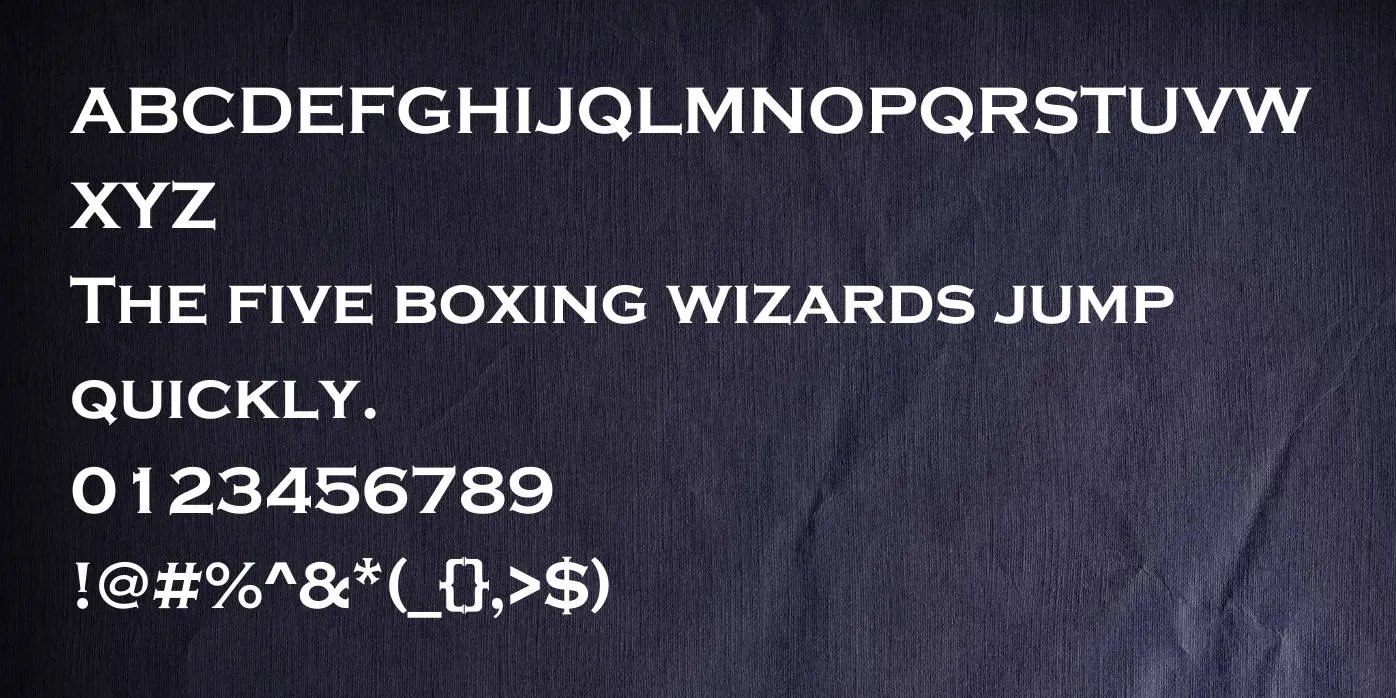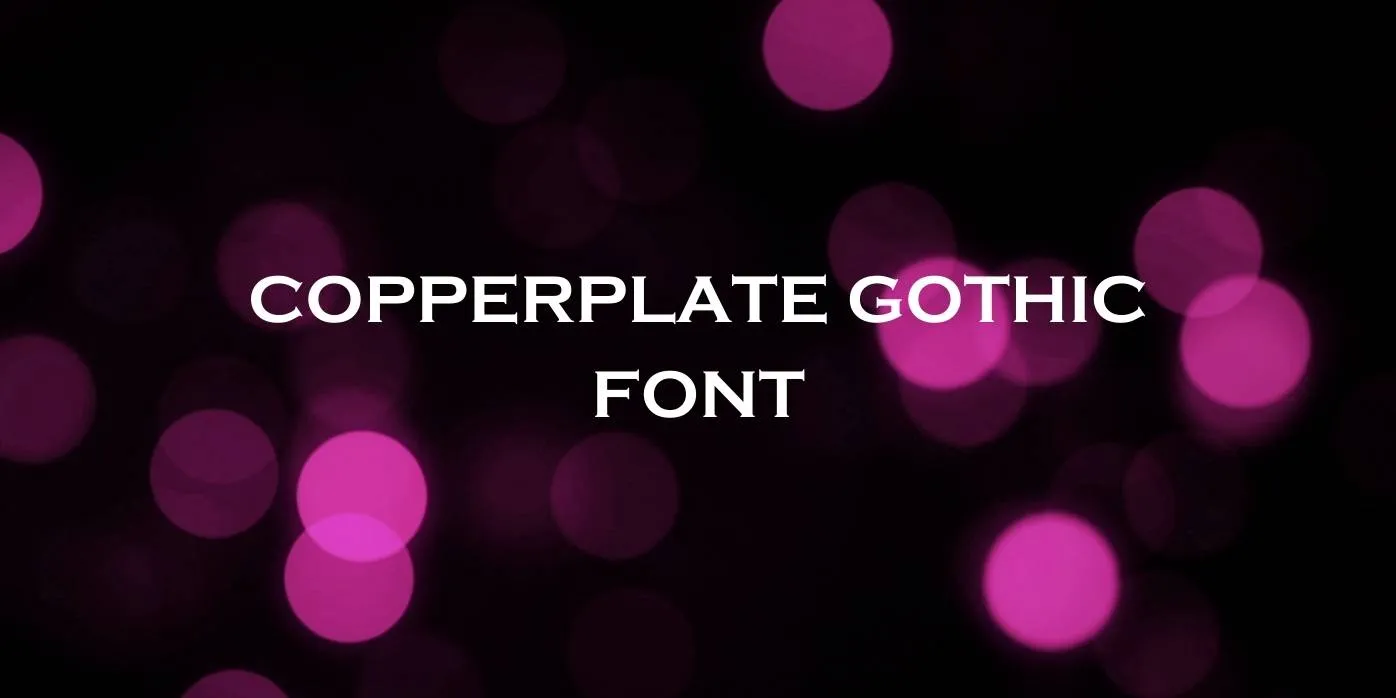
Copperplate Gothic Font
Introduce a very elegant shape font with a beautiful typography style that is Copperplate Gothic font. The designer of this typeface is Frederic W. Goudy. The font family belongs to a Serif font family with a light touch of Gothic.
The font has beautiful characters with uppercase and lowercase letters, Numbers and Numerals, and symbols that are usually used in many places. The typeface supports many languages and accents and has the ability to fulfill all the designer’s requirements. It has TrueType outlines and Digitally Signed featured characters. It is very common for CSS (Cascading Style Sheet) and many other computer applications.